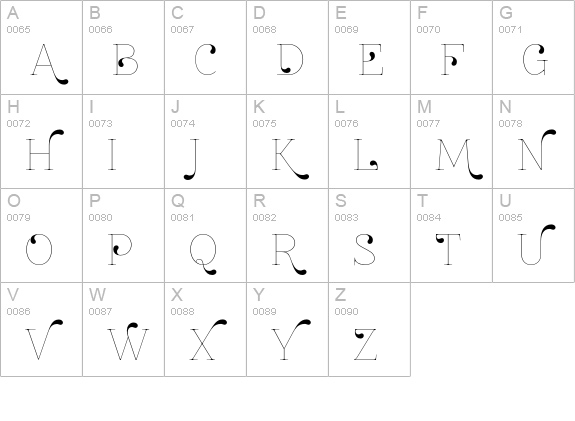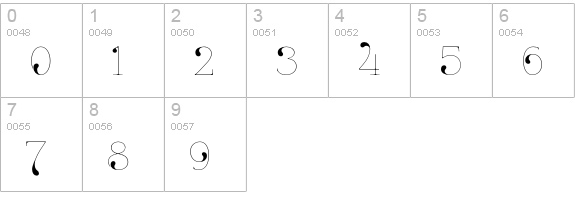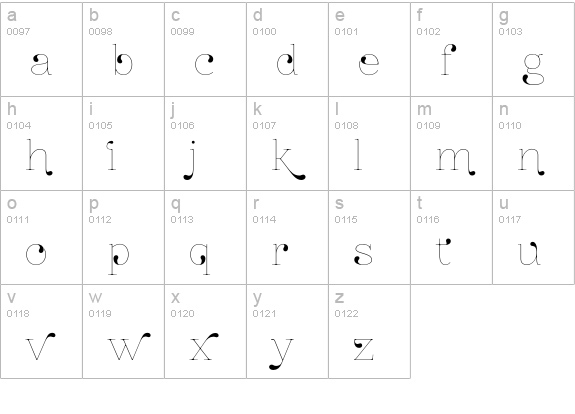
ZnikomitNo24 Font Details
ZnikomitNo24 font is a stunning display font that exudes an air of vintage elegance and sophistication. With its intricate letterforms, this typeface is sure to captivate and enchant any viewer. Its unique design combines elements of both serif and script fonts, resulting in a harmonious blend of traditional and contemporary aesthetics. This font is perfect for adding a touch of charm and character to any project. Whether you're designing a logo, creating invitations, or crafting eye-catching headlines, ZnikomitNo24 will elevate your work to the next level. Its versatility allows it to be used in a wide range of applications, from branding to editorial design. One of the most appealing aspects of ZnikomitNo24 font is that it is freely available to download at FontsMarket.com. This means that you can enjoy the beauty and elegance of this typeface without any restrictions. With just a few clicks, you can access this incredible font and start using it in your designs today. The attention to detail in ZnikomitNo24 font is truly remarkable. Each letter is meticulously crafted to ensure maximum legibility and visual impact. The curves are smooth, the lines are clean, and the overall design is simply breathtaking. It is a testament to the skill and craftsmanship of its creator. Whether you're a professional designer or a hobbyist, ZnikomitNo24 font is a must-have in your font library. Its timeless appeal and versatility make it a valuable asset for any creative project. So why wait? Head over to FontsMarket.com and download this amazing font for free. Unleash your creativity and let ZnikomitNo24 font bring your designs to life.